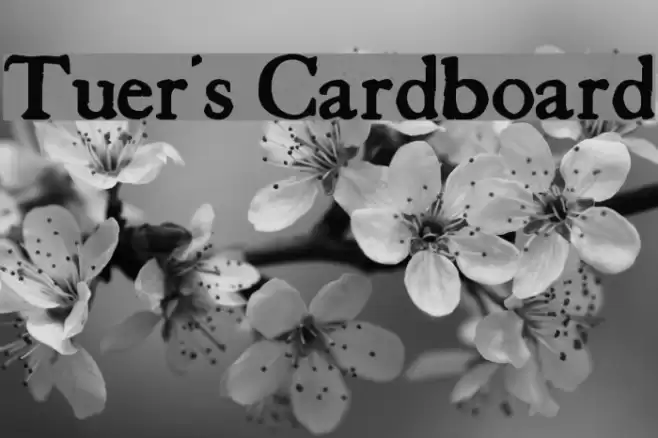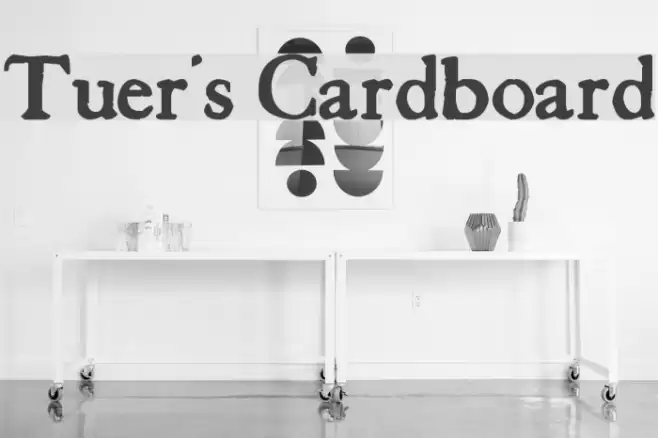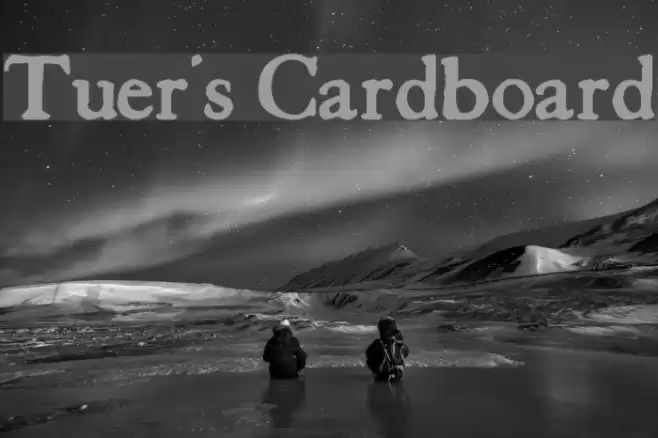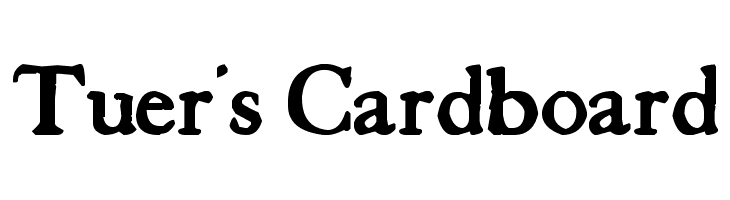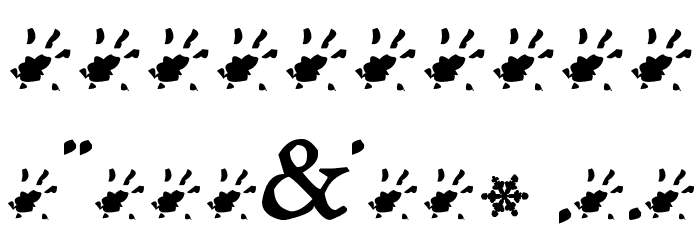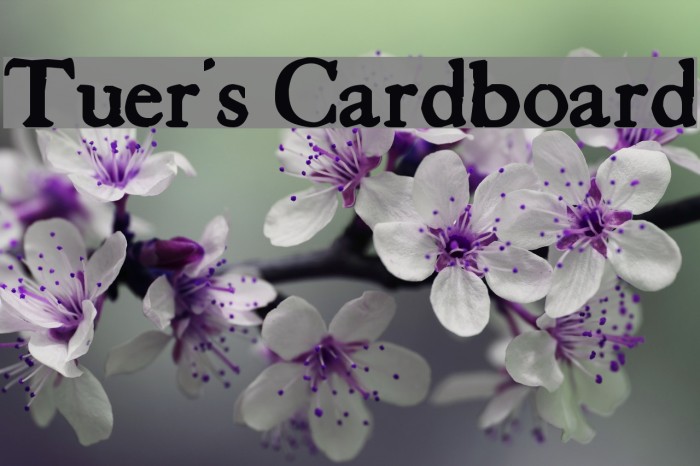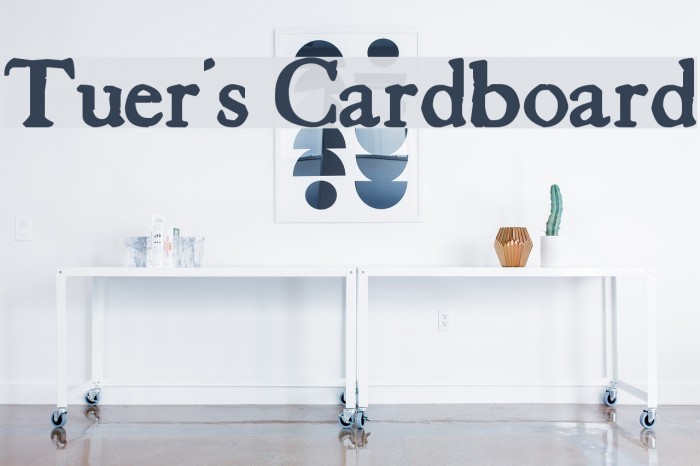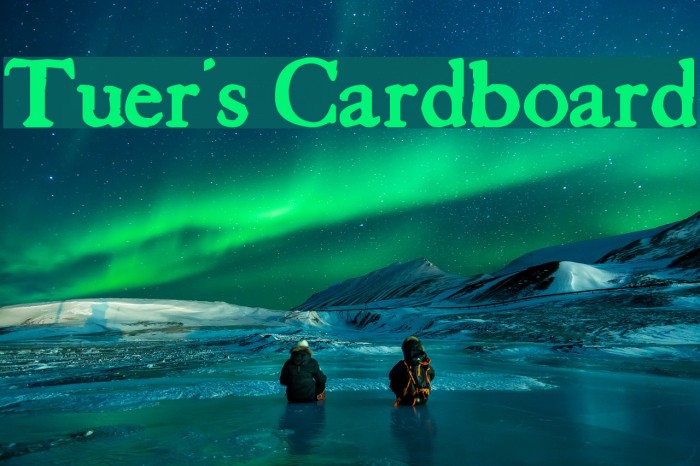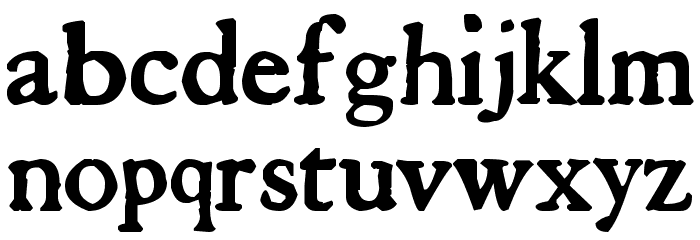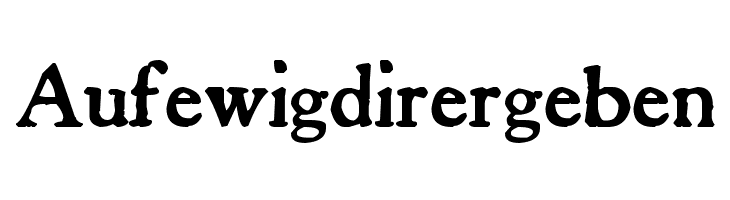
Tuer's Cardboard
This font features a rugged, textured appearance reminiscent of hand-stamped or distressed lettering. The characters have an irregular, organic quality, with uneven edges and a slightly worn look, giving them a rustic and vintage feel. The uppercase and lowercase letters maintain a consistent style, with bold strokes and a playful, informal vibe. The numbers and special characters follow the same aesthetic, making the font suitable for creative and artistic projects. Its unique style is perfect for adding a touch of personality and charm to any design.
A rugged, textured font with a vintage, hand-stamped appearance.
- Proposed Projects: Ideal for posters, album covers, craft projects, and any design needing a rustic, artistic touch.
- Overall Style: Vintage
- Use Case: Headlines, Logos, Posters